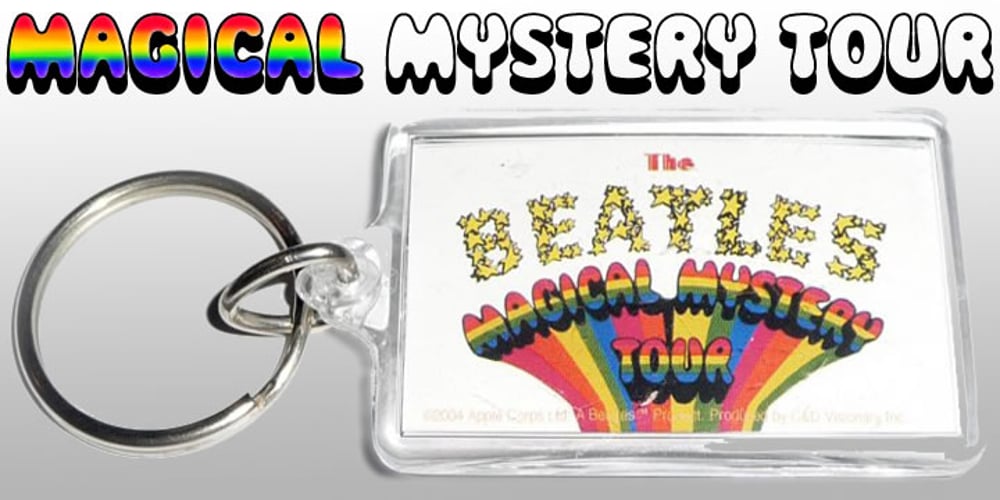
Magical Mystery Tour Font Family was designed by Keith Bates and published by K-Type. Magical Mystery Tour contains 2 styles and family package options. Magical Mystery Tour and the Outline Shadow version are fonts based on the lettering used for the Magical Mystery Tour record sleeve. A full-fat and bulbous casual sans with a 1960s feel.